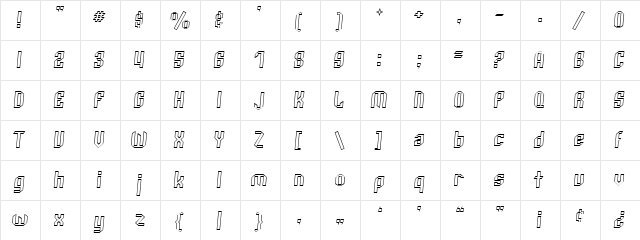
SF Archery Black Outline Italic
Design Context for SF Archery Black Outline Typeface
SF Archery Black Outline is built around its visual character rather than neutral utility — its distinctive forms are designed to make an impression at display sizes. The slanted form adds forward momentum and visual energy.
Font Pairing: Pair with a clean neutral sans-serif for body copy to let SF Archery Black Outline's character lead without overwhelming the composition.
Pro Tip: Treat SF Archery Black Outline as the centrepiece of your typographic hierarchy. One strong heading set in a decorative face can carry an entire layout.